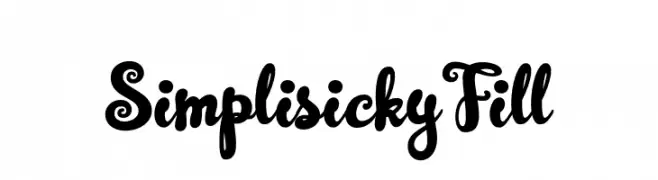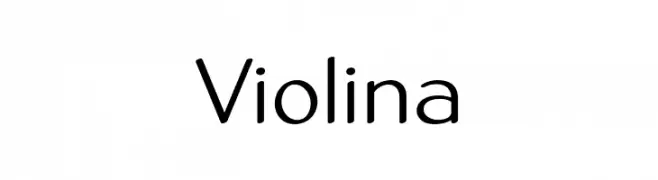
An elegant, flowing script font with interconnected cursive lines and artistic flourishes.
A bold, geometric font with a modern, digital aesthetic.
A bold, geometric font with a blocky, digital appearance.
A bold, geometric font with a strong, industrial aesthetic.
A bold, italicized font with a blocky, geometric style, perfect for impactful headlines.
A bold, blocky, italicized font with a geometric and modern style.
A bold, geometric font with hollow interiors and a modern, industrial feel.
A bold, blocky font with hollow interiors and a geometric, modern style.
A bold, blocky font with an inverse design and geometric shapes.
A bold, geometric font with a modern, industrial style.
A bold, playful font with rounded, bubble-like shapes and high contrast.
A bold, playful font with bubble-like, rounded characters.
A bold, bubble-like italic font with a playful and modern style.
A playful, outlined font with bold, rounded characters resembling inflated bubbles.
A bold, playful font with rounded, bubble-like characters.
A bold, playful font with rounded, flowing forms and decorative elements.
A bold, geometric font with sharp angles and a dynamic style.
Bold, rounded font with a playful, modern aesthetic.
A bold, geometric font with thick strokes and a modern, angular design.
A bold, italic font with a dynamic and playful style.
A bold, hollow, and modern font with rounded edges and a playful aesthetic.
A bold, hollow, geometric font with a modern aesthetic.
A bold, modern font with unique cut-out style and strong visual impact.
A bold, rounded font with a playful and modern style.
A bold, rounded font with a modern and playful style.
A bold, slanted font with rounded characters and consistent stroke width.
A modern font with geometric influences and elongated strokes.
A rounded, geometric sans-serif font with a clean, modern look.
A modern, rounded sans-serif font with a friendly and approachable style.
A bold, italic font with smooth, rounded edges and a dynamic slant.
A modern sans-serif font with rounded edges and excellent readability.
A decorative, vine-like font with an organic, intertwined design.
A bold, gothic-inspired font with sharp, angular edges and a dramatic flair.
A bold, gothic-inspired font with sharp, angular edges and high contrast.
A bold, dynamic font with sharp, angular edges and a calligraphic flair.